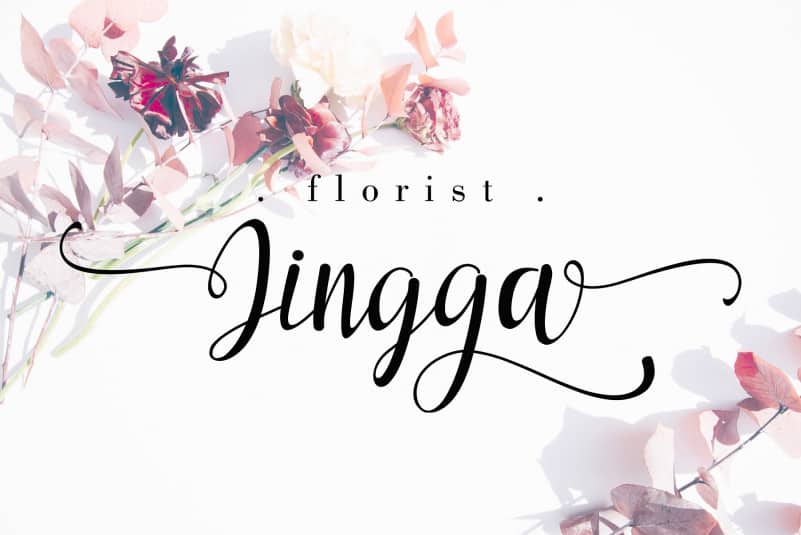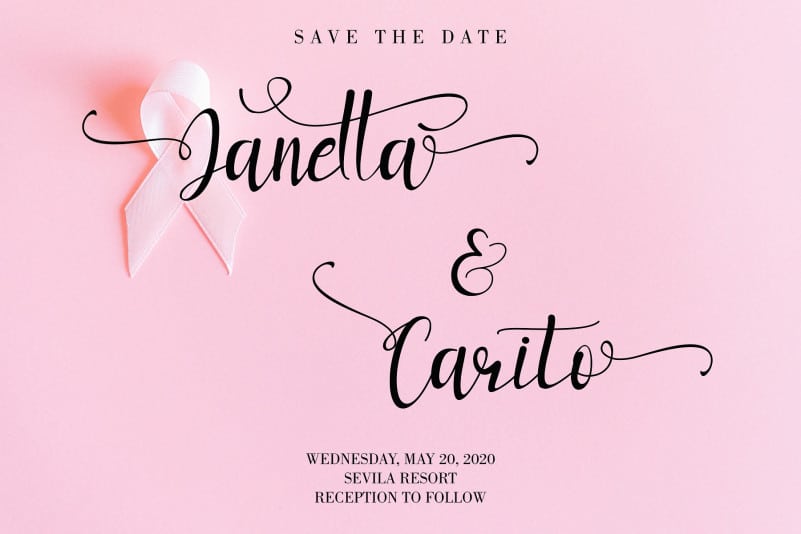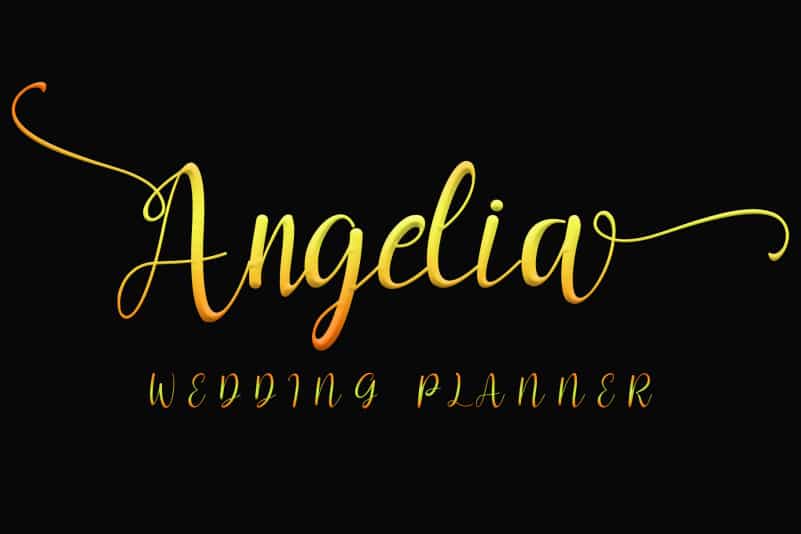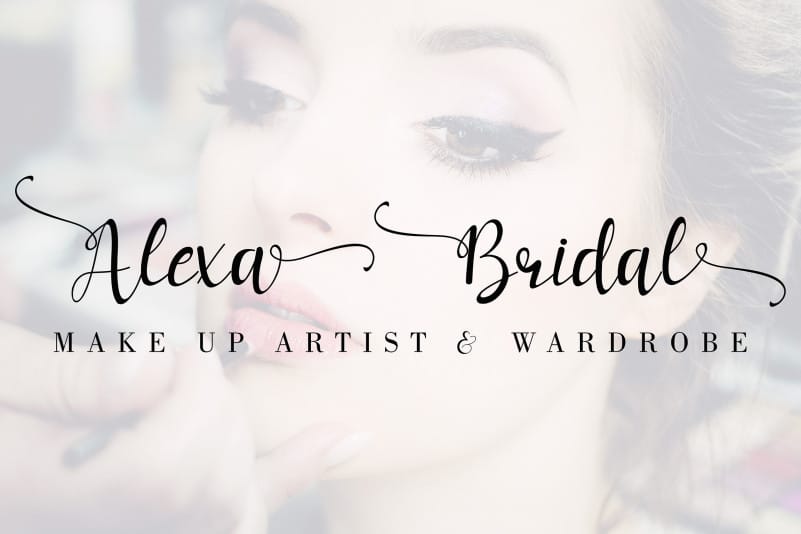
Vienetta Calligraphy Font
Vienetta Calligraphy Font is beautiful and elegant font. This font can be used for wedding events both for invitation card, wedding planners, writing in flower shops, or for other romantic greetings. Besides being beautiful, Vienetta is also elegant for fashion such as make up artists and also photography.